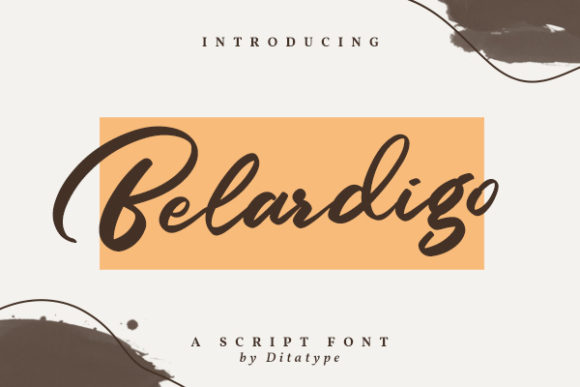
Unleash your creativity with Belardigo Font - the captivating script font that's both charming and elegant. Step into a world of endless possibilities, where your designs take center stage. With its graceful curves and flowing lines, Belardigo Font will leave a lasting impression on your audience.
Immerse yourself in the beauty of this handwritten font, crafted with meticulous attention to detail. Each letter dances across the page, evoking a sense of timeless elegance and sophistication. Whether you're a seasoned designer or just starting, Belardigo Font is your perfect companion for creating stunning visuals.
Elevate your logos, branding, and social media presence with Belardigo Font's captivating charm. Its versatility shines across a myriad of creative projects, from personal invitations and greeting cards to eye-catching posters and website designs. Let your words dance with grace, capturing the attention of your audience.
Experience the joy of crafting DIY projects with Belardigo Font. Personalize your home décor, transform ordinary objects into works of art, and create unique gifts that express your heartfelt emotions. The possibilities are endless, waiting for you to explore and bring your visions to life.
Join the creative revolution with Belardigo Font, the ultimate choice for designers and DIY enthusiasts alike. Discover the boundless beauty that awaits you, where imagination meets elegance. Your creative journey starts now - download Belardigo Font today and let your designs flourish!